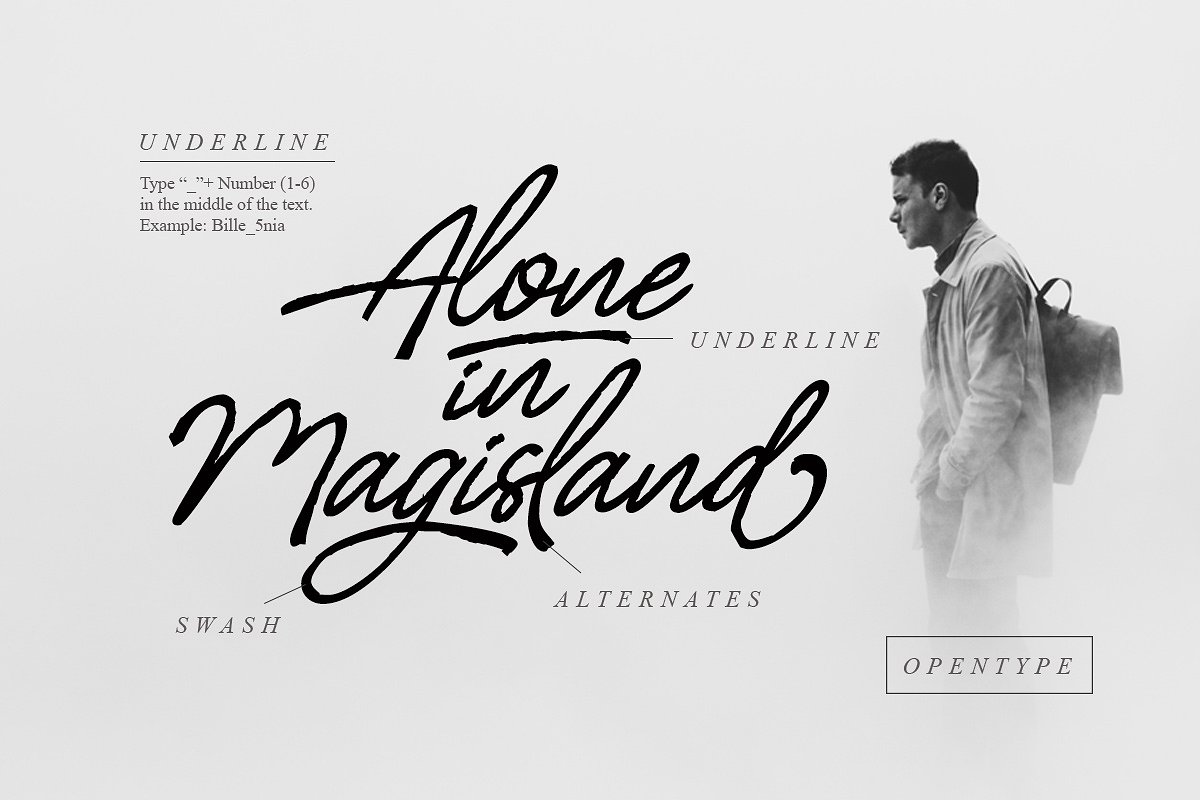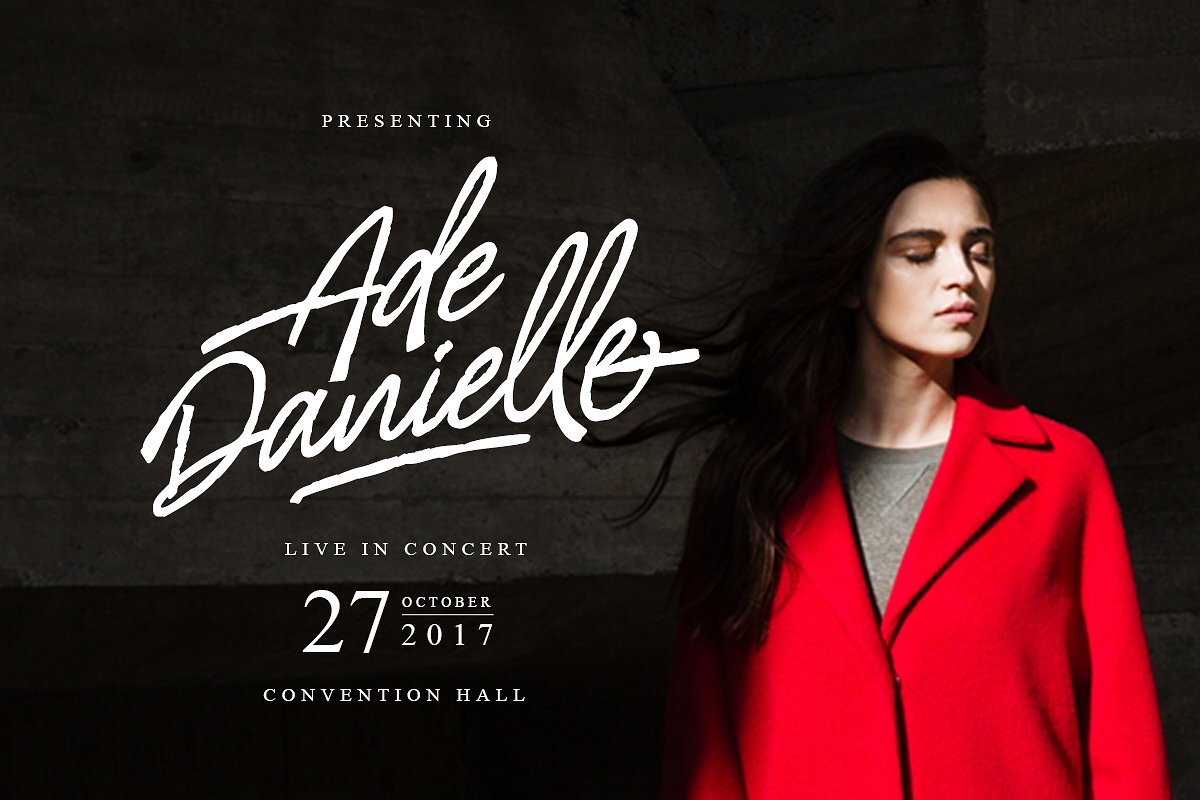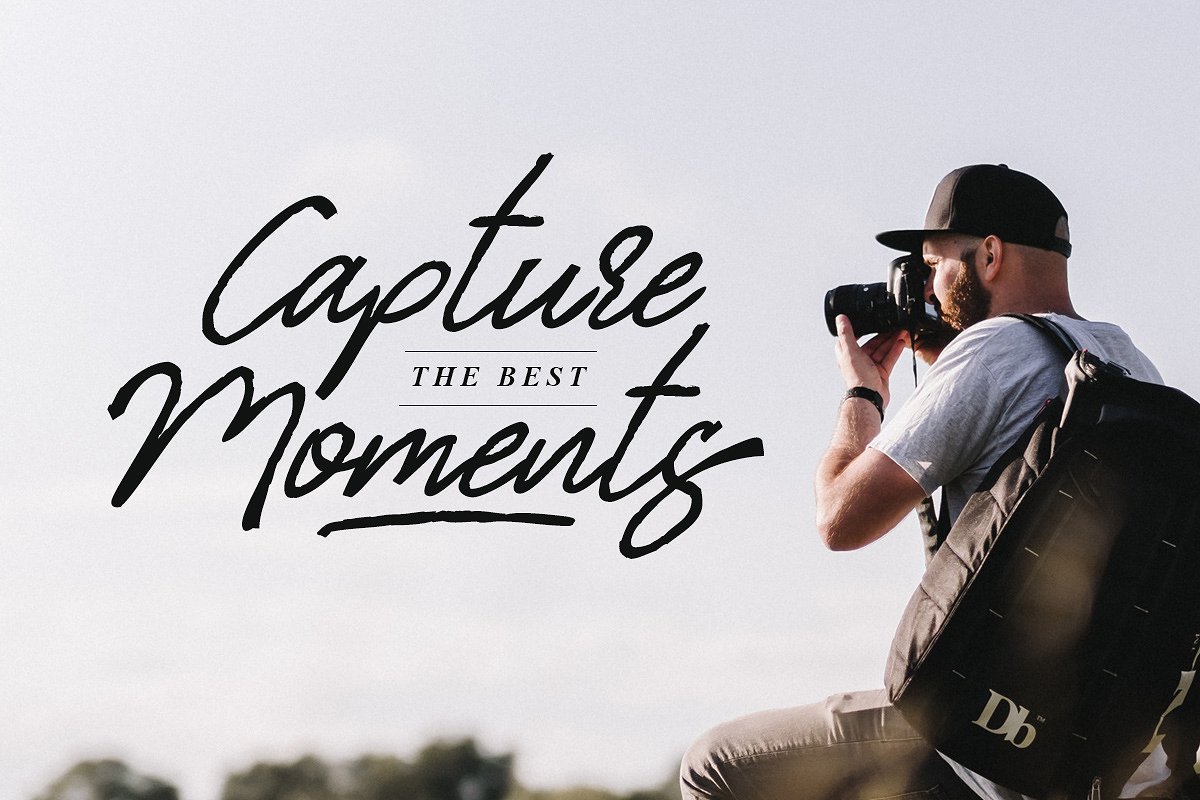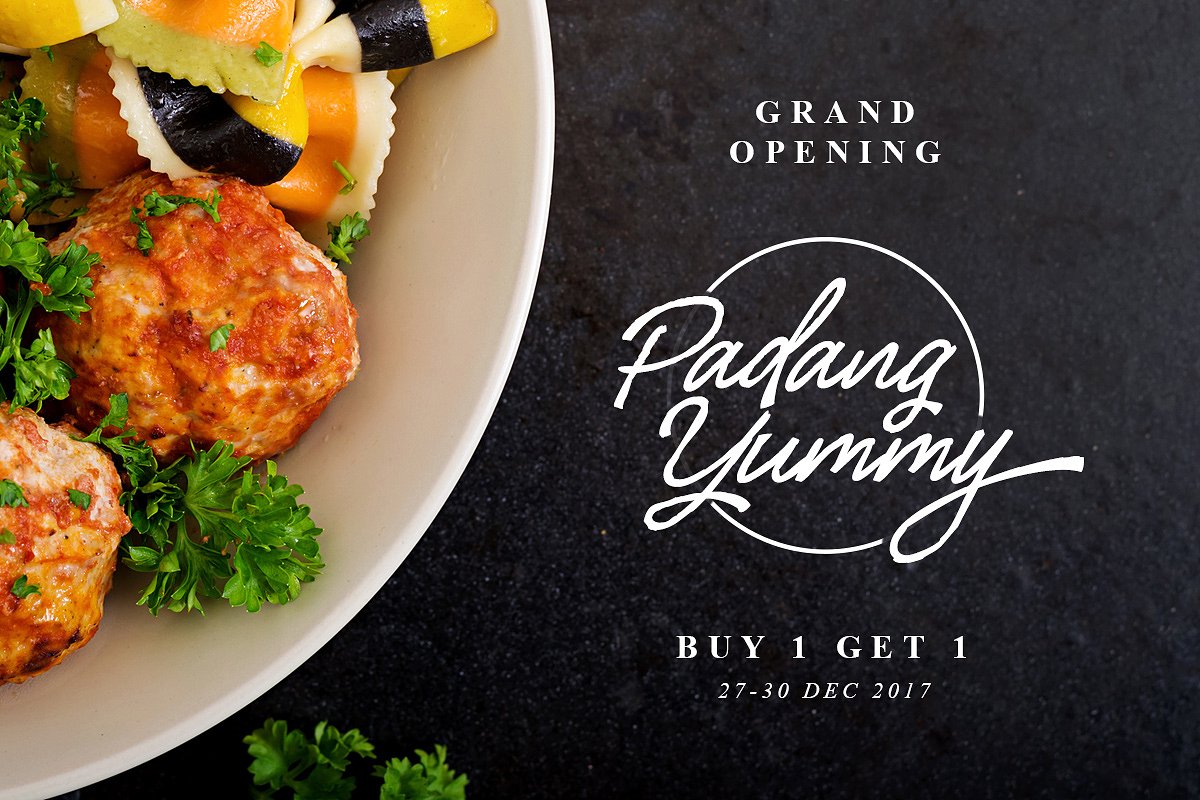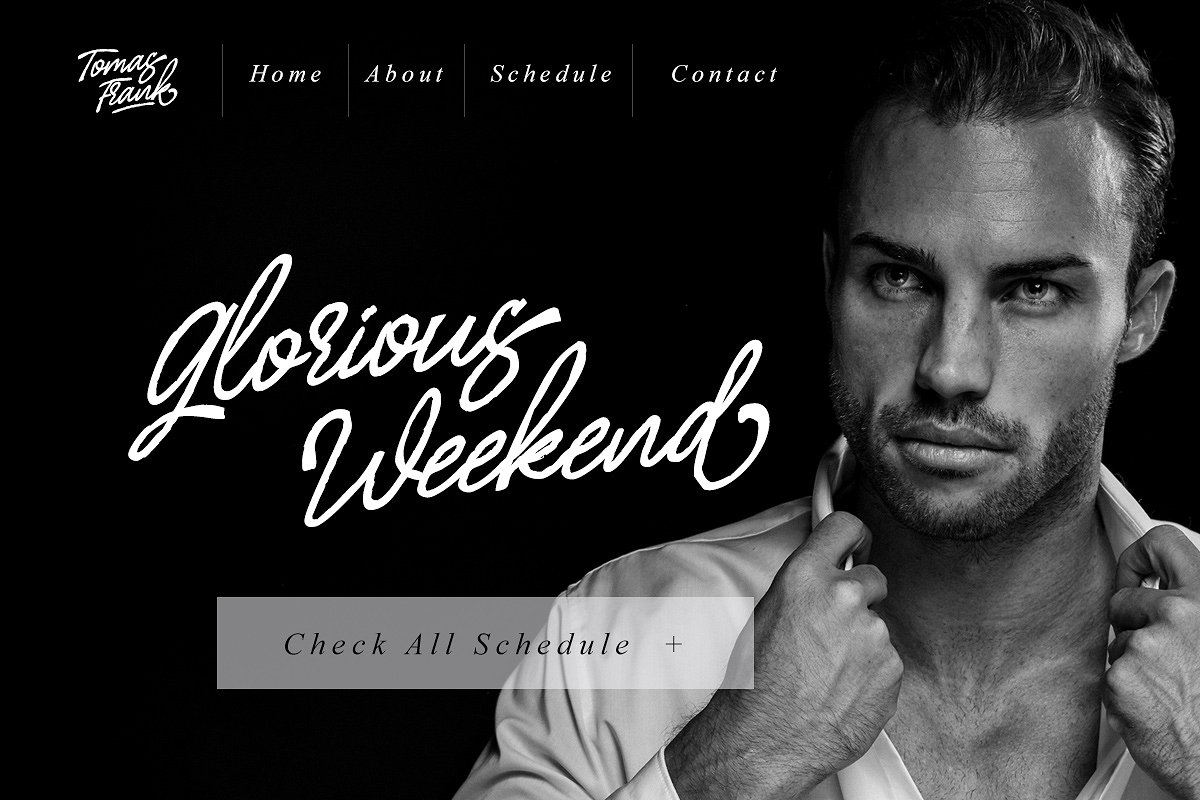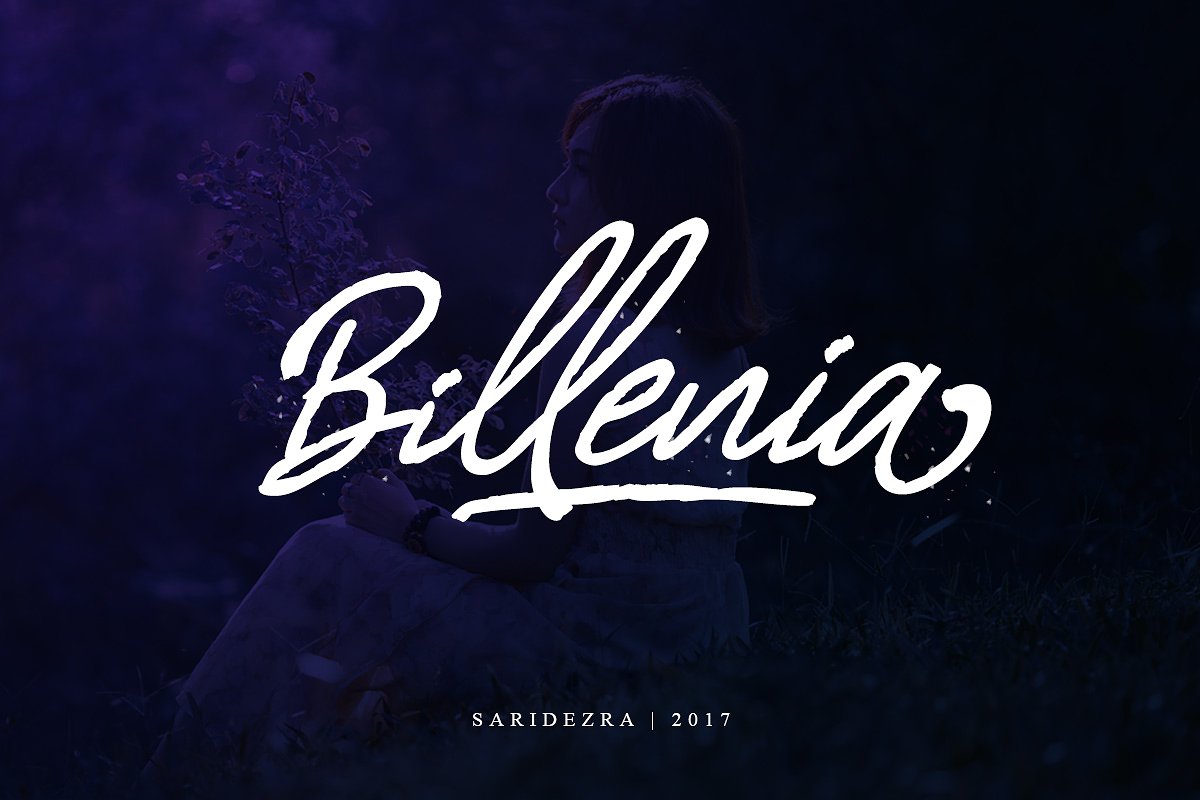
Billenia – Script Font
Introducing, Billenia Script. Another Script Font for you!
Billenia is handwritten font that contain stylistic alternate, swash, etc to create your own customized signature. This font is also support multi language. This font available in OTF and TTF. Also Support PUA. You can use this font for everything you want!